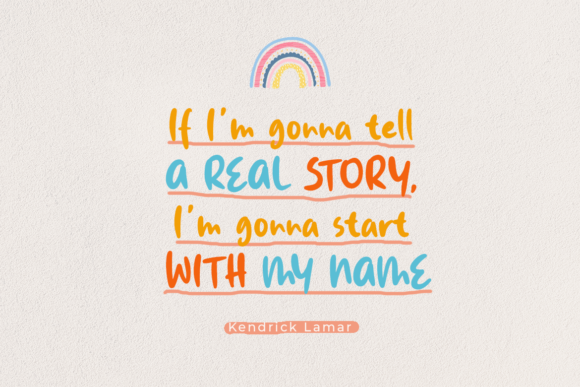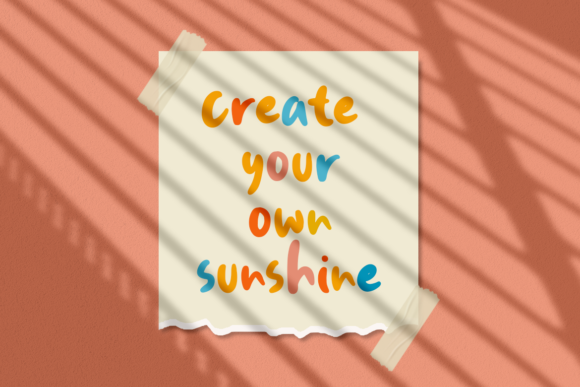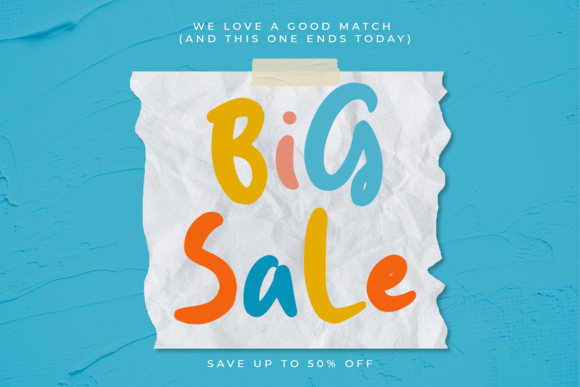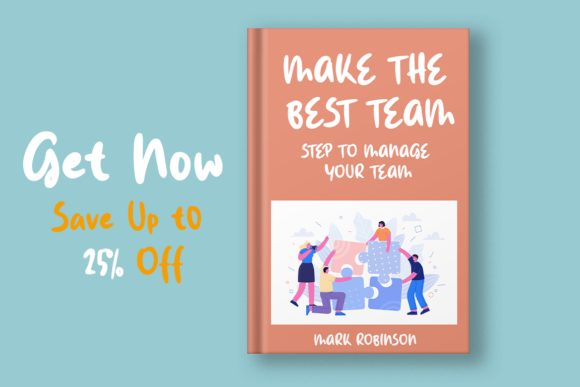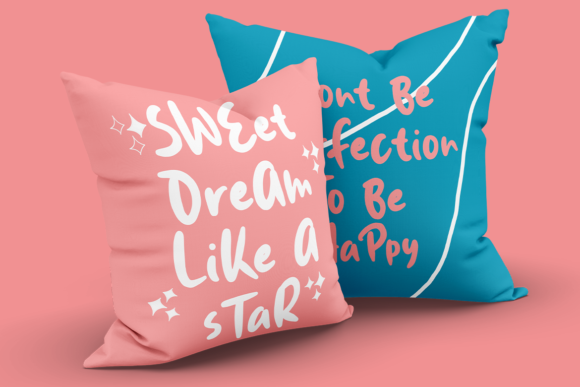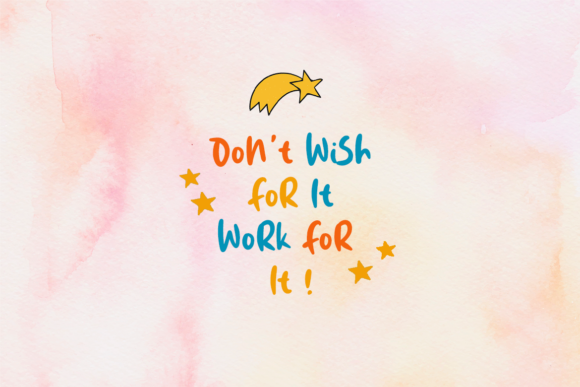
Introduction to Ogie Moelfis Font
Have you ever been stuck on a creative project, unable to find the perfect font to capture the essence of your idea? I’m sure many designers have been there. But what if I told you that there’s a font that can bring your design to life with its unique, natural vibe? Say hello to the Ogie Moelfis Font, a casual brush script font that’s perfect for a wide range of design projects.
Key Features of Ogie Moelfis Font
- Designed with a unique, modern aesthetic making it perfect for digital design
- Supports various languages and is highly legible at various resolutions
- Includes a comprehensive character set with over 1000 glyphs
Honest Review: Ogie Moelfis Font
I recently had the chance to experiment with the Ogie Moelfis Font, a free download available for designers. Overall, I was impressed with its clean design and versatility. The font is perfect for creative projects that require a modern and professional touch. ✨ One of the standout features is its transparent background, which allows for seamless integration with other design elements.
- High-quality design with a modern aesthetic
- May not be suitable for projects requiring a bold, attention-grabbing font
- Limited font weights and styles
In terms of overall impression, I think the Ogie Moelfis Font is a solid addition to any designer’s resource library. While it may not be perfect for every project, its clean design and transparent background make it a great choice for a wide range of creative endeavors. I would definitely consider using it again in the future.
Tips for Getting the Most Out of Ogie Moelfis Font
For the best results, use Ogie Moelfis Font with a transparent background to create a seamless design. Experiment with different font styles and sizes to add depth and visual interest to your design. You can also pair this font with other design resources to create a cohesive and professional-looking design.
Ogie Moelfis Font is suitable for a wide range of creative projects, including branding, advertising, and digital media. Its high-quality design makes it an excellent choice for designers who want to create professional-looking designs without breaking the bank. This free download font is a valuable addition to any design resource library.